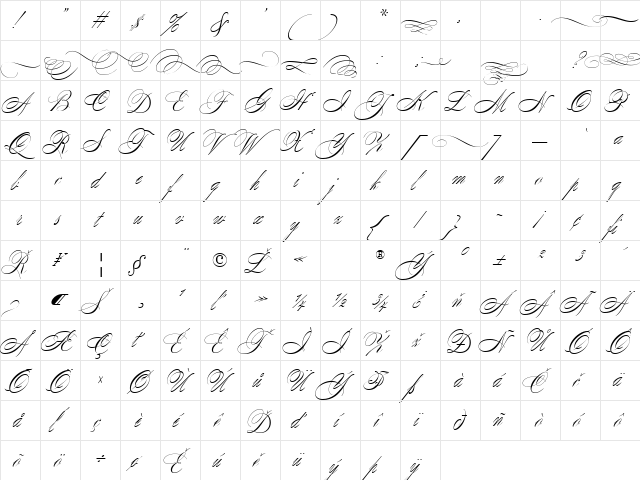
SplendidOrnamenty Regular
Design Context for SplendidOrnamenty Typeface
SplendidOrnamenty is built around its visual character rather than neutral utility — its distinctive forms are designed to make an impression at display sizes.
Font Pairing: Pair with a clean neutral sans-serif for body copy to let SplendidOrnamenty's character lead without overwhelming the composition.
Pro Tip: Use SplendidOrnamenty exclusively at display sizes — it was designed to be seen, not read at length. Let a neutral companion handle body copy.